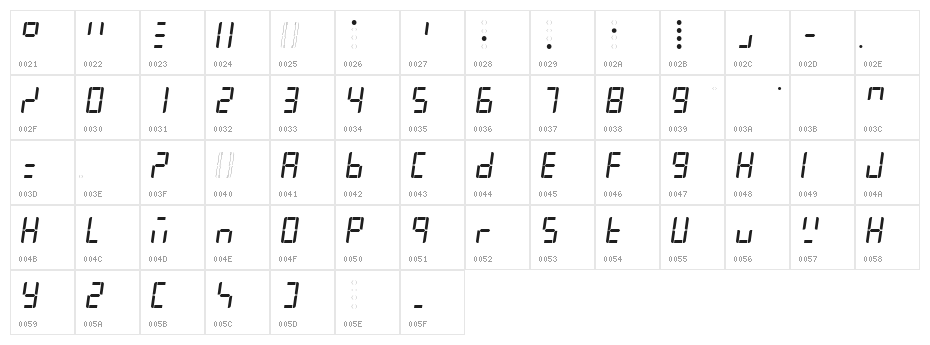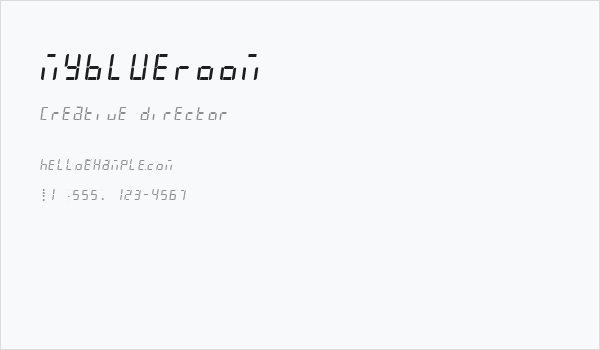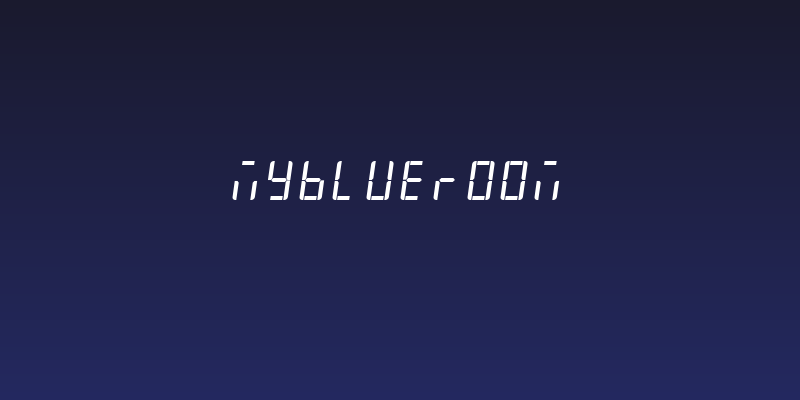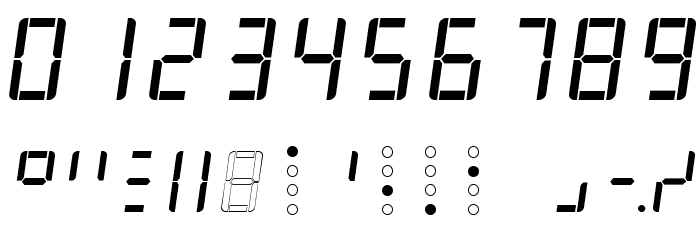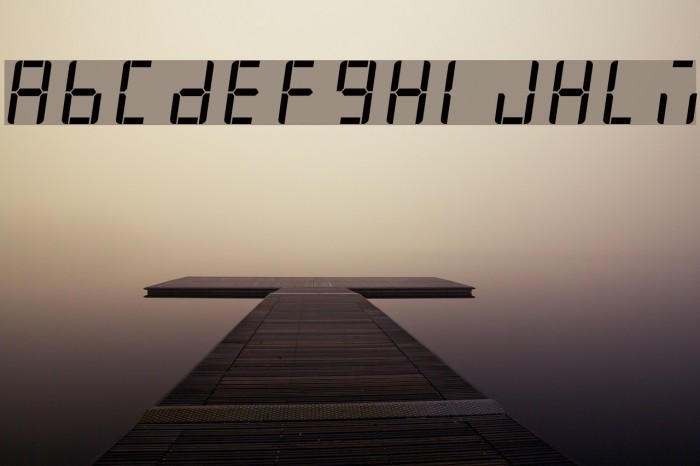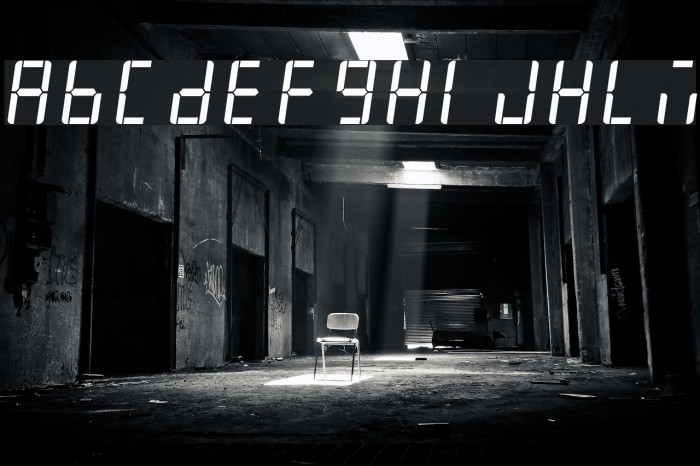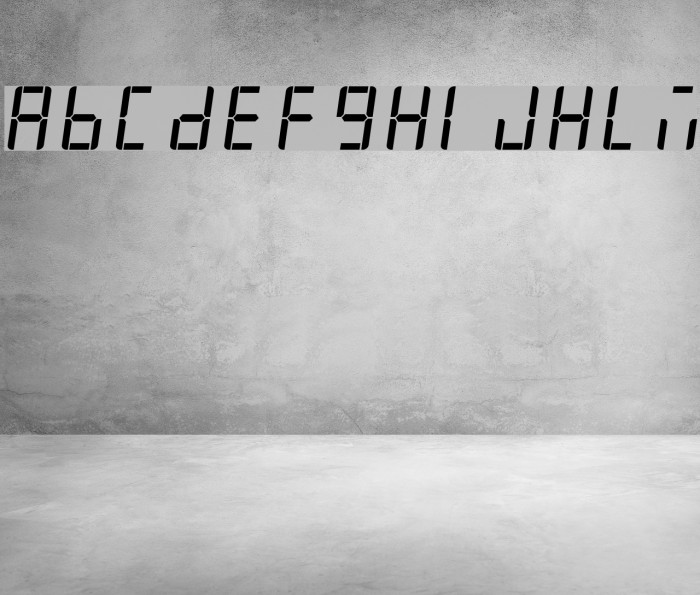
MyBlueRoom Font
This font is a digital-style typeface that mimics the appearance of seven-segment displays commonly found in digital clocks and calculators. Each character is constructed using straight lines and sharp angles, giving it a distinctly mechanical and futuristic look. The uniformity in the design ensures that each letter and number is easily distinguishable, maintaining clarity even at smaller sizes. The font includes both uppercase and lowercase letters, numerals, and a selection of special characters, all adhering to the same segmented style. This design is particularly effective for conveying a sense of technology and modernity.
| Proposed Projects | Perfect for digital clocks, tech-themed posters, user interfaces, and retro-futuristic designs. |